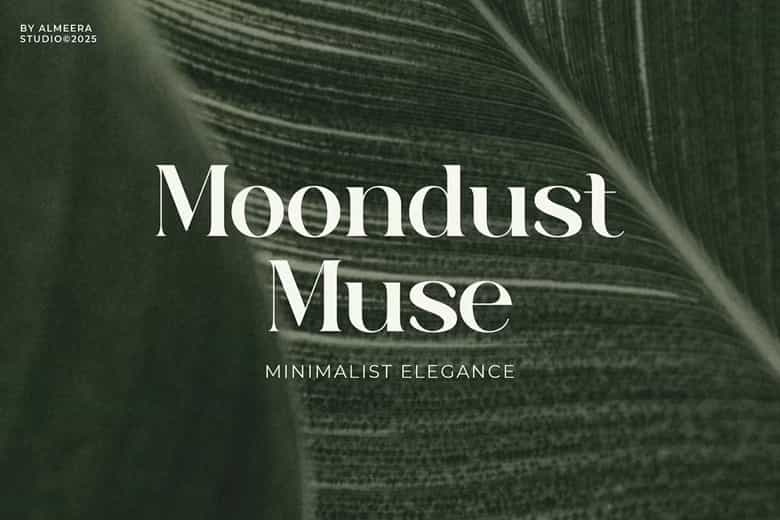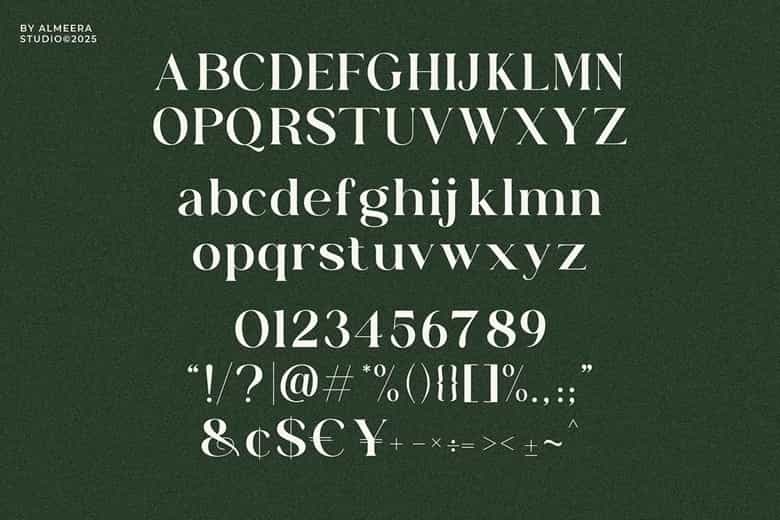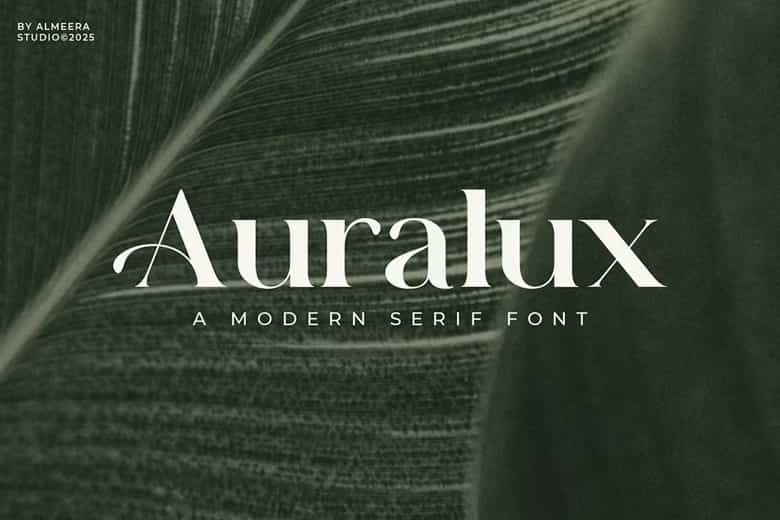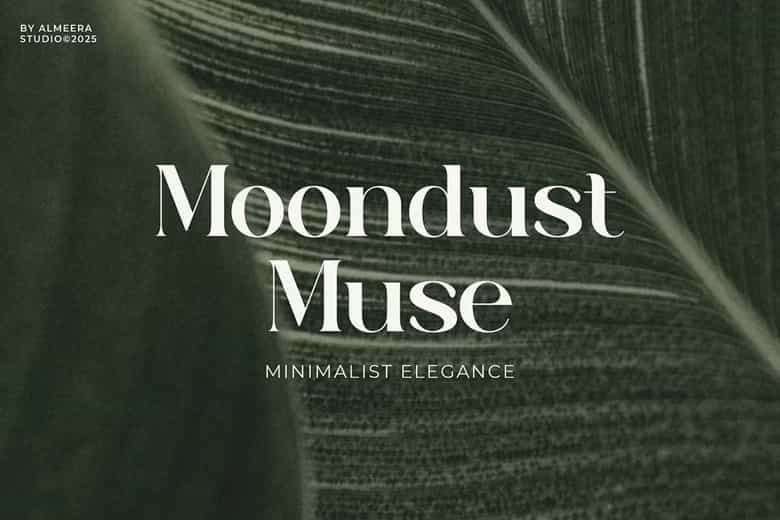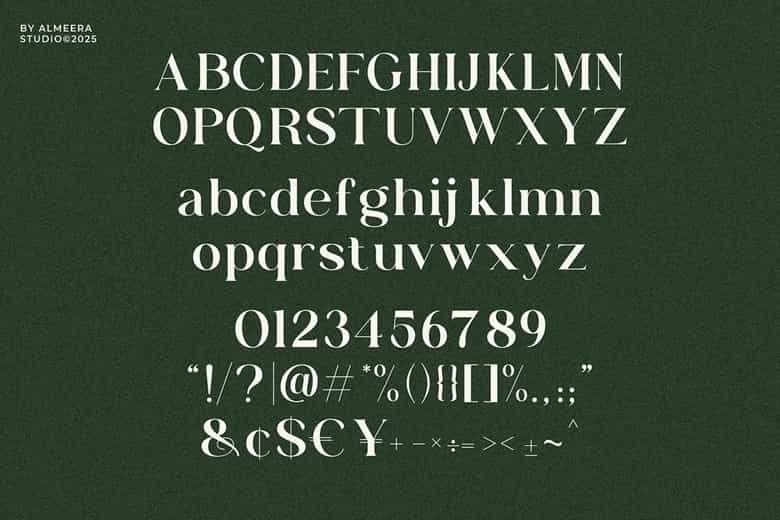
Auralux is a new serif font. This font is highly applicable in your various needs including branding works, logos, social media, advertising, labeling, product packaging, photography, wedding design, watermarks, invitation product design, stationery and any other design.